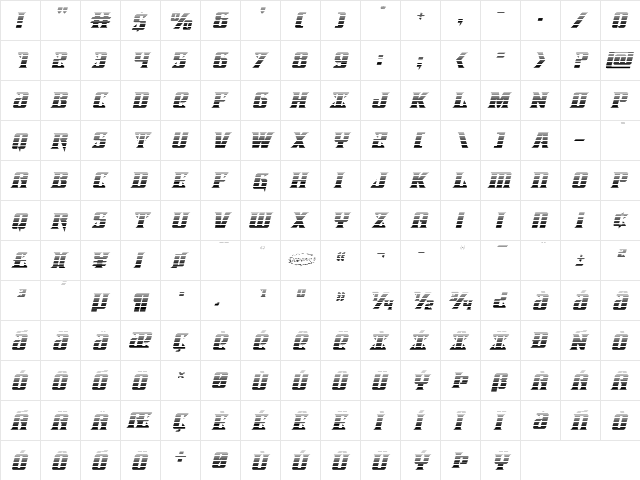
Lifeforce Gradient Italic Italic
Design Context for Lifeforce Gradient Italic Typeface
Lifeforce Gradient Italic has the bold swagger of sports branding: strong, assertive letterforms designed to dominate headlines and jerseys alike. The dynamic lean of this cut emphasises speed and emphasis in any layout.
Built for sports team identities, athletic apparel, event posters, and high-energy promotional material.
Pro Tip: Lifeforce Gradient Italic thrives on contrast — try it large, bold, and tight against a clean background for maximum visual impact.